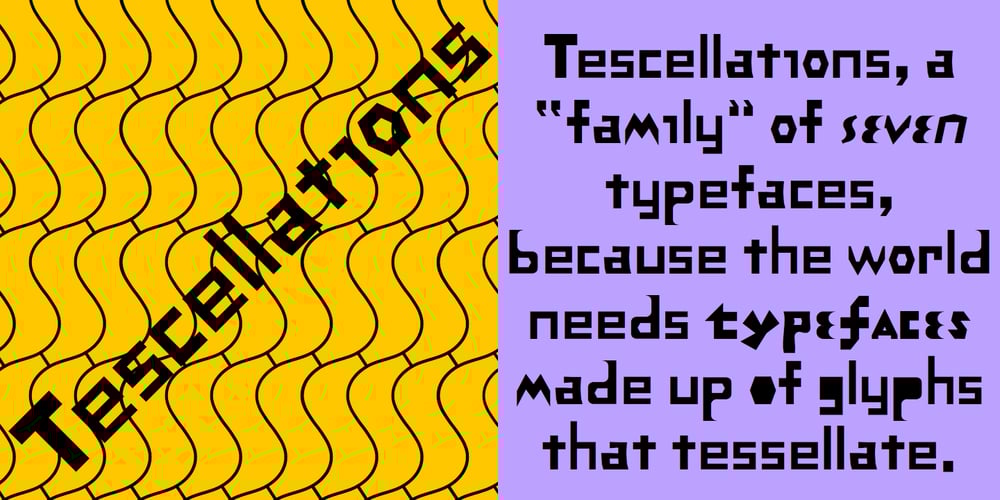
Tescellations
Tescellations font
Tescellations Font Family was designed by Robert Schenk and published by Ingrimayne Type. Tescellations contains 7 styles and family package options. Though there are many thousands of digital typefaces available, none seem to be made exclusively of letters that tessellate, a complete tessellating alphabet. This void is now filled with not one typeface, but a group of typefaces, the Tescellations kinship group. Even though I am aware of only one use for this typeface–writing about tessellations–that does not mean there are not hundreds or perhaps thousands of other uses. These typefaces are a byproduct of two maze books I designed, Puzzling Typography and Puzzling Typography A Sequel. I found the challenge of making mazes from tessellations, including letter tessellations, intriguing and these typefaces are a byproduct that endeavor. There are seven members of this typeface kinship group. I tried to select the the glyphs that fit together best to form Tescellations; it is the most readable of the lot. The reason for an Italics version is that I needed one for the maze project. In constructing it, I tried to include as many different lower-case glyphs as I could rather than just skew the regular version. A purist might insist that the tessellation deal with the counters. My approach was to worry only about the exterior of any letter that has an interior, but for anyone who who might object to the counters, versions with filled counters are included. What did not fit into Tescellations was dumped into Tescellations Two, which is somewhat of a ransom-note type of face. It comes in two styles, a regular version and a version in which the counters are removed. TescellationPatterns shows how many of the characters in these typefaces tessellate. It has over 100 tessellation patterns, each on only one character. Simply type several lines with any character and make sure the leading is the same as the font size, and you have an instant tessellation pattern of a letter.